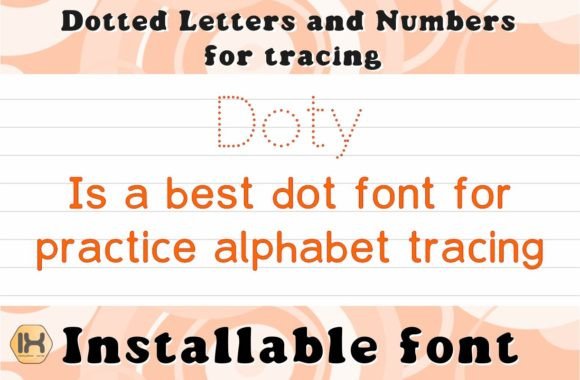
Doty Font: The Ultimate Tool for Practicing Alphabet and Number Tracing
Are you looking for an effective way to practice alphabet and number tracing? Do you want to simplify your lettering and handwriting practice? Look no further than the Doty Font! In this article, we’ll explore the benefits of using the Doty Font, its features, and why it’s ideal for kids and beginners.
What is Doty Font?
Doty Font is a specially designed font that features dots to guide users in tracing alphabets and numbers. The font is created to help individuals, especially kids and beginners, to practice handwriting and lettering with ease. The dots in the font serve as a guide, allowing users to focus on the correct formation of letters and numbers.
Benefits of Using Doty Font
Using the Doty Font offers numerous benefits, including:
- Improved Handwriting: The Doty Font helps users develop muscle memory and improve their handwriting skills by providing a guide for correct letter and number formation.
- Easier Lettering: The font simplifies lettering practice, allowing users to focus on the correct formation of letters and words.
- Increased Confidence: With the Doty Font, users can build confidence in their handwriting and lettering abilities, which can translate to other areas of life.
- Fun and Engaging: The Doty Font makes handwriting and lettering practice fun and engaging, especially for kids.
Features of Doty Font
The Doty Font has several features that make it an ideal tool for practicing alphabet and number tracing:
- Dot Guides: The font features dots that guide users in tracing letters and numbers, making it easier to learn correct formation.
- Clear and Consistent: The font is clear and consistent, making it easy to read and understand.
Why Doty Font is Ideal for Kids and Beginners
The Doty Font is an ideal tool for kids and beginners because:
- Easy to Learn: The font is designed to be easy to learn, with dot guides that help users understand the correct formation of letters and numbers.
- Fun and Engaging: The Doty Font makes handwriting and lettering practice fun and engaging, which is essential for kids and beginners.
- Builds Confidence: The font helps users build confidence in their handwriting and lettering abilities, which is crucial for kids and beginners.
How to Use Doty Font for Practicing Alphabet and Number Tracing
Using the Doty Font for practicing alphabet and number tracing is easy:
- Choose a Worksheet: Choose a worksheet or create one using the Doty Font.
- Practice Tracing: Practice tracing letters and numbers using the dot guides.
Tips for Using Doty Font Effectively
Here are some tips for using the Doty Font effectively:
- Start Slow: Start with slow and deliberate movements, focusing on correct letter and number formation.
- Practice Regularly: Practice regularly to build muscle memory and improve handwriting and lettering skills.
- Use Guidelines: Use guidelines or worksheets to help users stay focused and on track.
The Doty Font is an excellent tool for practicing alphabet and number tracing. Its unique features, such as dot guides, make it an ideal font for kids and beginners. With the Doty Font, users can improve their handwriting and lettering skills, build confidence, and have fun while learning.